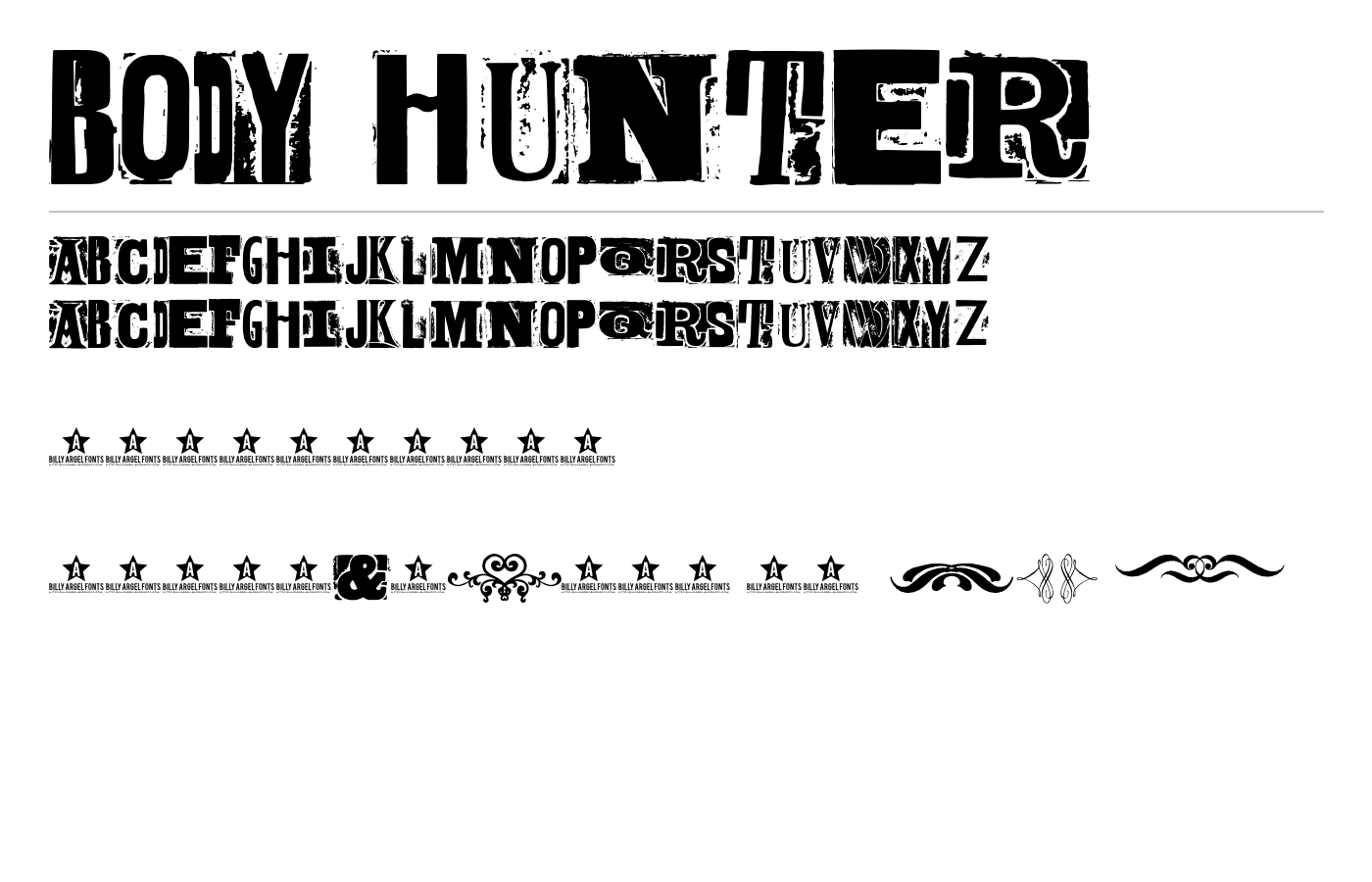
BODY HUNTER is a bold, distressed slab serif font featuring strong, blocky letterforms with a rough, weathered texture that evokes a rugged and gritty vibe. Its uppercase characters have a condensed width and high contrast between thick and worn edges, making it perfect for eye-catching headlines, posters, or branding that needs an intense, tough personality. This font works well for projects seeking a dramatic, vintage, or rebellious feel, especially in fashion, outdoor, or action-themed designs.
BODY HUNTER Font
About BODY HUNTER Font